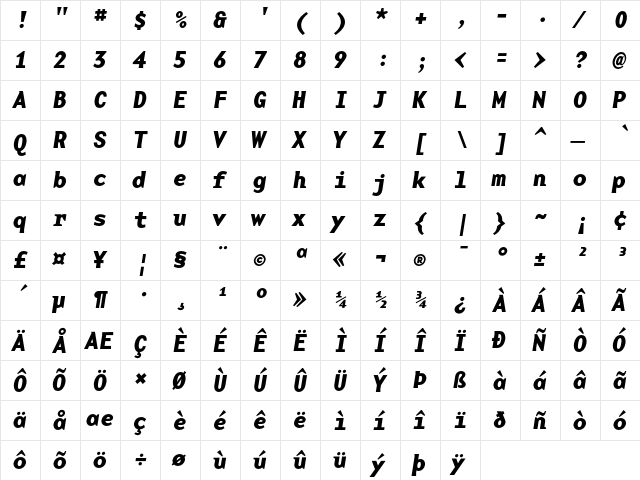
BaseMonoWide BoldItalic Font Preview
Design Context for BaseMonoWide Typeface
BaseMonoWide uses fixed-width spacing throughout, giving it the structured, systematic character associated with coding environments and technical documentation. The slanted form adds forward momentum and visual energy. The heavy weight commands attention and anchors typographic hierarchies.
Pro Tip: Use BaseMonoWide with slightly increased line-height for extended reading — fixed-width spacing can feel dense in longer passages without extra breathing room.